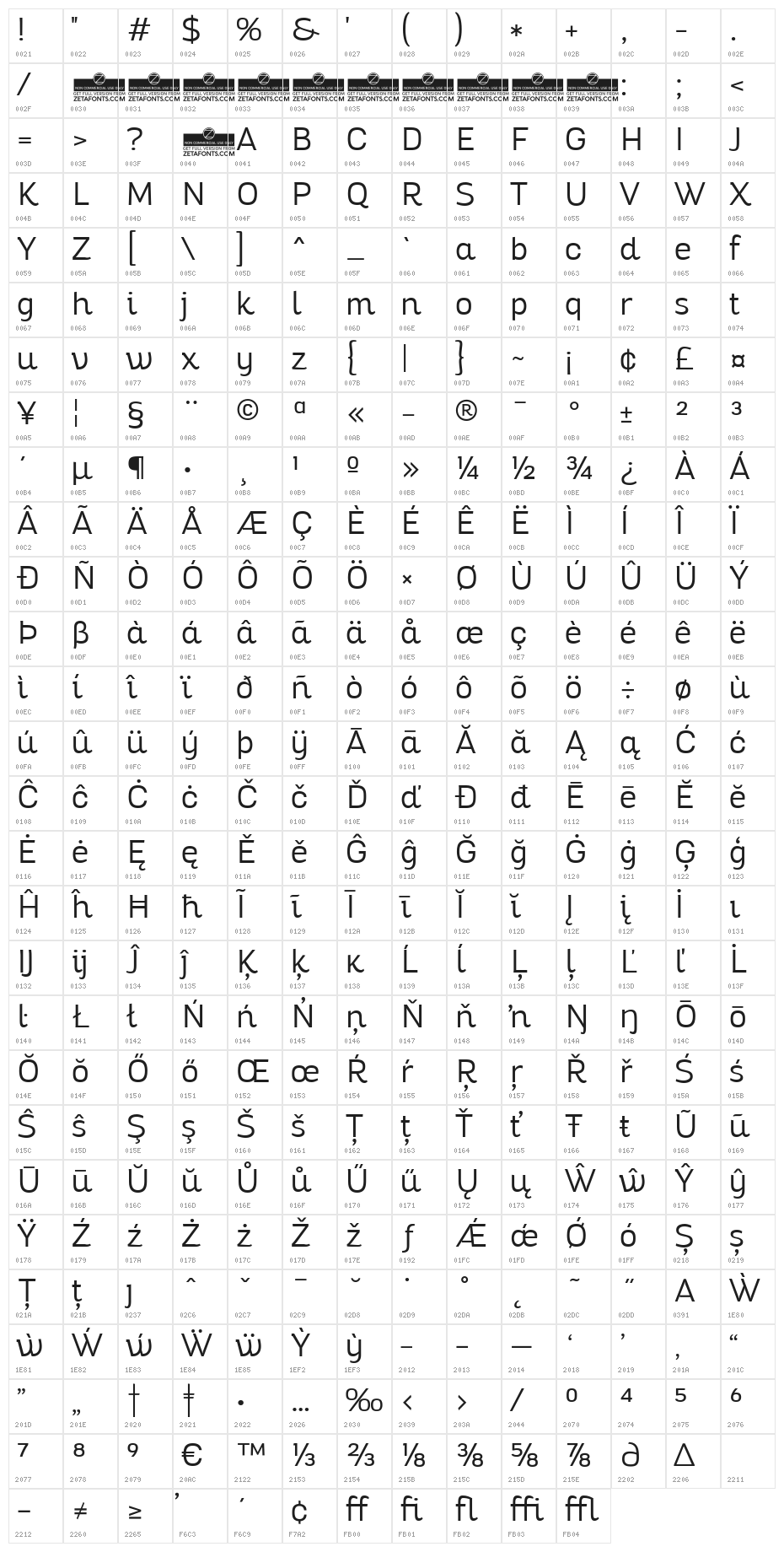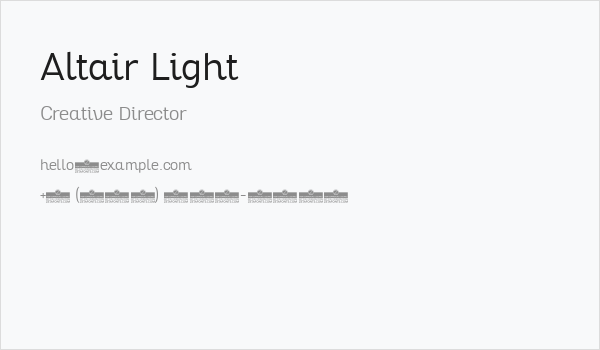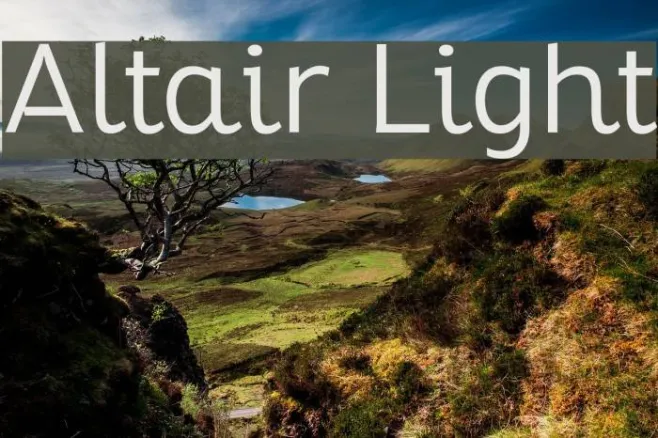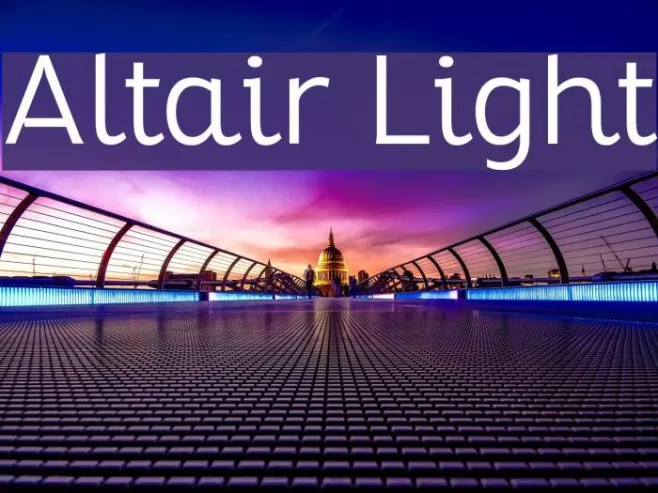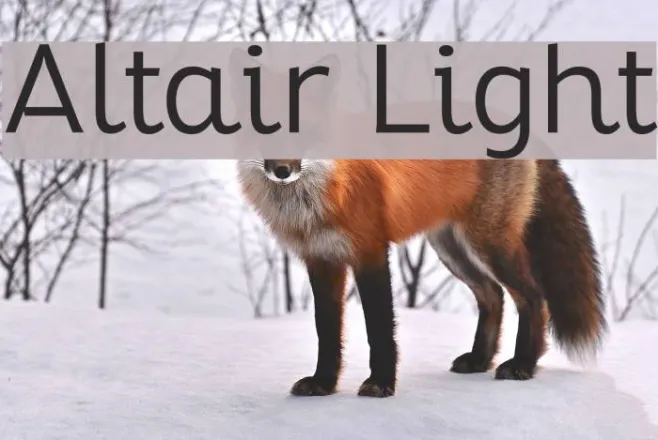
Altair Light Font
Altair Light Description
This font features a clean and modern sans-serif design with a light weight, offering a sleek and contemporary appearance. The characters are crafted with precision, exhibiting a uniform stroke width that contributes to its minimalistic style. The uppercase and lowercase letters are well-proportioned, maintaining a harmonious balance throughout the typeface. The numerals and special characters are designed to complement the alphabet, ensuring consistency in style. The font's simplicity and clarity make it highly legible, suitable for a variety of applications where readability is key.
| Proposed Projects | Ideal for digital interfaces, branding projects, corporate materials, and editorial design where a modern and clean aesthetic is desired. |